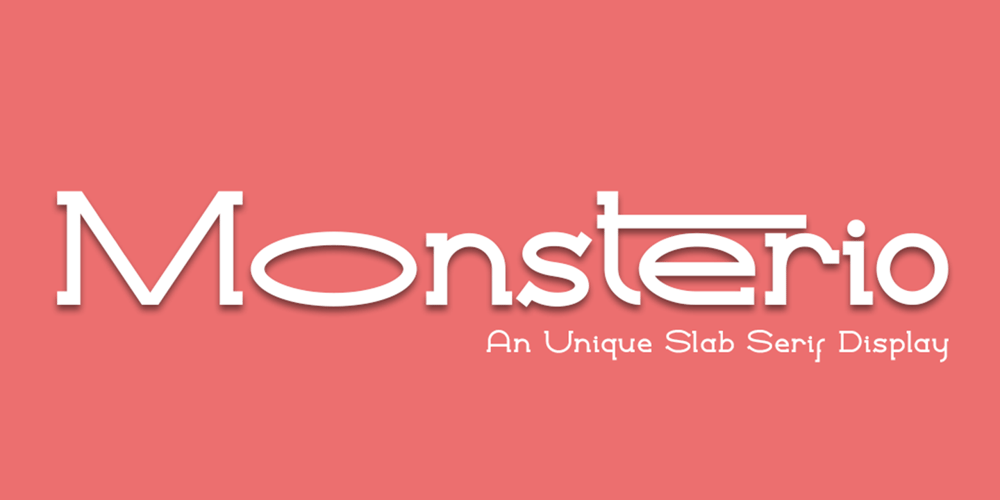
Monsterio
Monsterio font
Monsterio Font Family was designed by Sarwo Edhi Prayitno and published by Haksen. Monsterio contains 2 styles and family package options. Monsterio is a futuristic modern slab serif style with Uppercase and Lowercase feel nice balanced. Provide alternates font in lowercase with wider style make the design letter looks incridible. Honestly it works perfectly for headlines, logos, posters, packaging, T-shirts and much more.Font Features : Regular and Italic version Character set A-Z in uppercase and lowercase Alternates in Lowercase Numerals & Punctuation Accented Characters Multiple Languages Supported Format File: OTF Recommended to use in Adobe Illustrator or Adobe Photoshop with opentype feature.How to access Alternate Characters?Open glyphs panel : In Adobe Photoshop choose tool Window >> glyphs In Adobe Illustrator choose tool Type >> glyphs If you have questions, just send me a message and I’m glad to help.Have a great day,Haksen Std